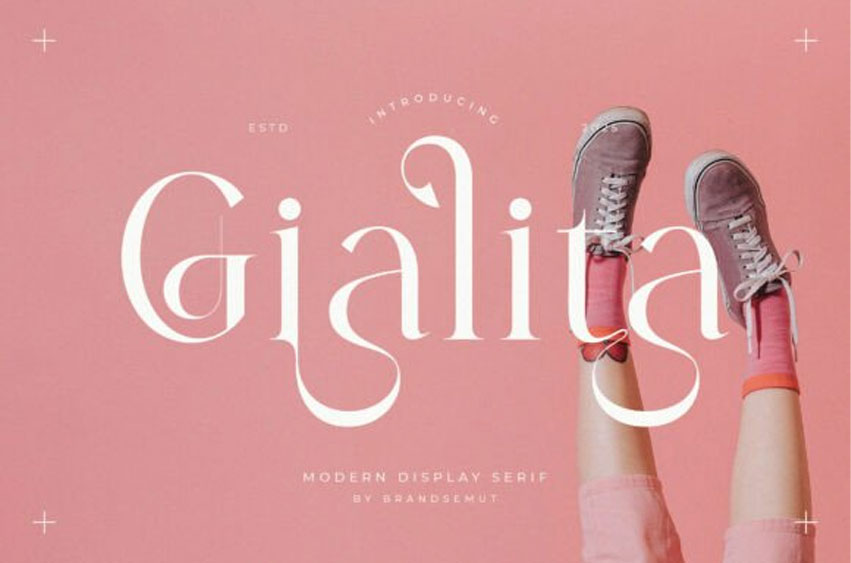
Gialita Font is a stylish modern display serif font that effortlessly combines whimsical elegance with contemporary sophistication. Characterized by its graceful curves, artistic stroke contrast, and thoughtfully crafted ligatures, Gialita brings a distinctive personality to any design. Each letterform is infused with playful refinement, making it an ideal choice for projects that seek to balance creativity with polish.
Perfectly suited for designers who value precision and aesthetic flair, Gialita performs beautifully in both print and digital media. Its decorative serifs and fluid alternates create a dynamic visual rhythm that enhances logos, editorial layouts, fashion branding, and luxury packaging. Whether you’re crafting a chic wedding invitation or an eye-catching headline, this font delivers elegance without compromising readability.
Available in OTF and TTF formats, Gialita includes uppercase and lowercase characters, ligatures, stylistic alternates, and multilingual support for versatility across global projects. Its fashion-forward tone and artistic structure ensure that every typographic composition feels both expressive and intentional, making it a standout asset for modern creatives.